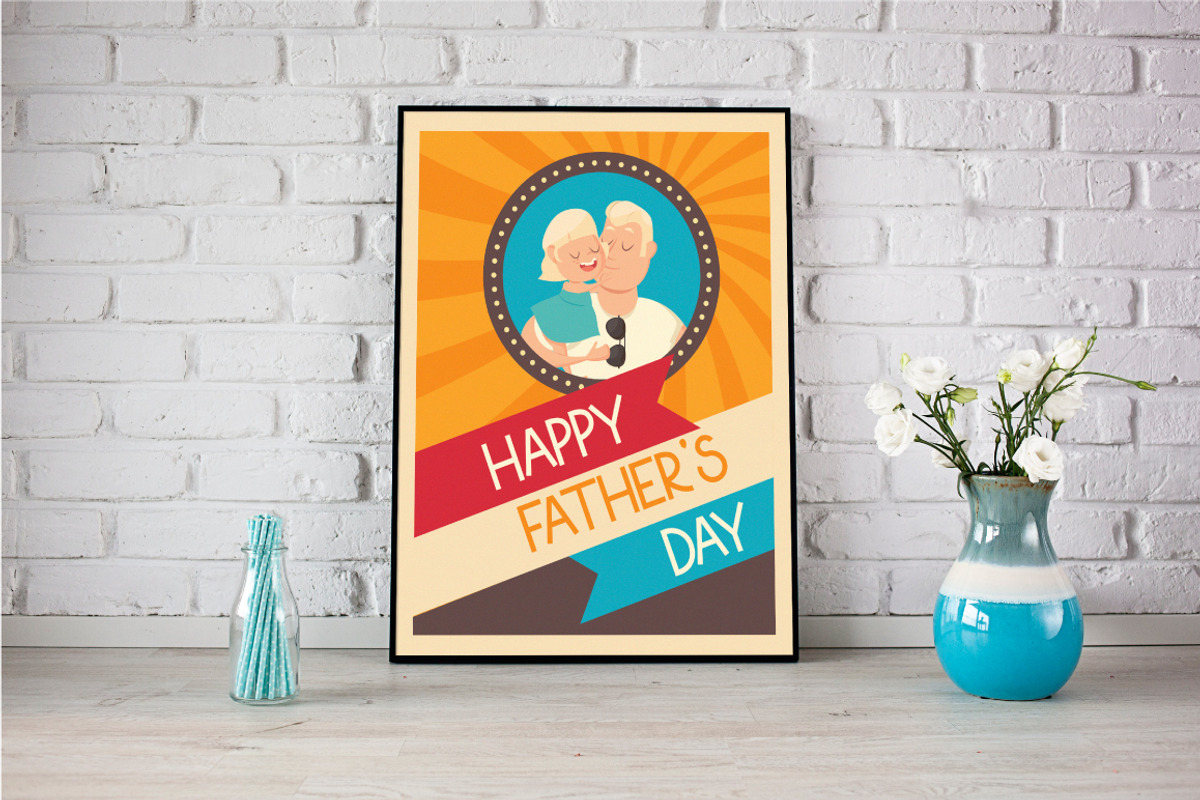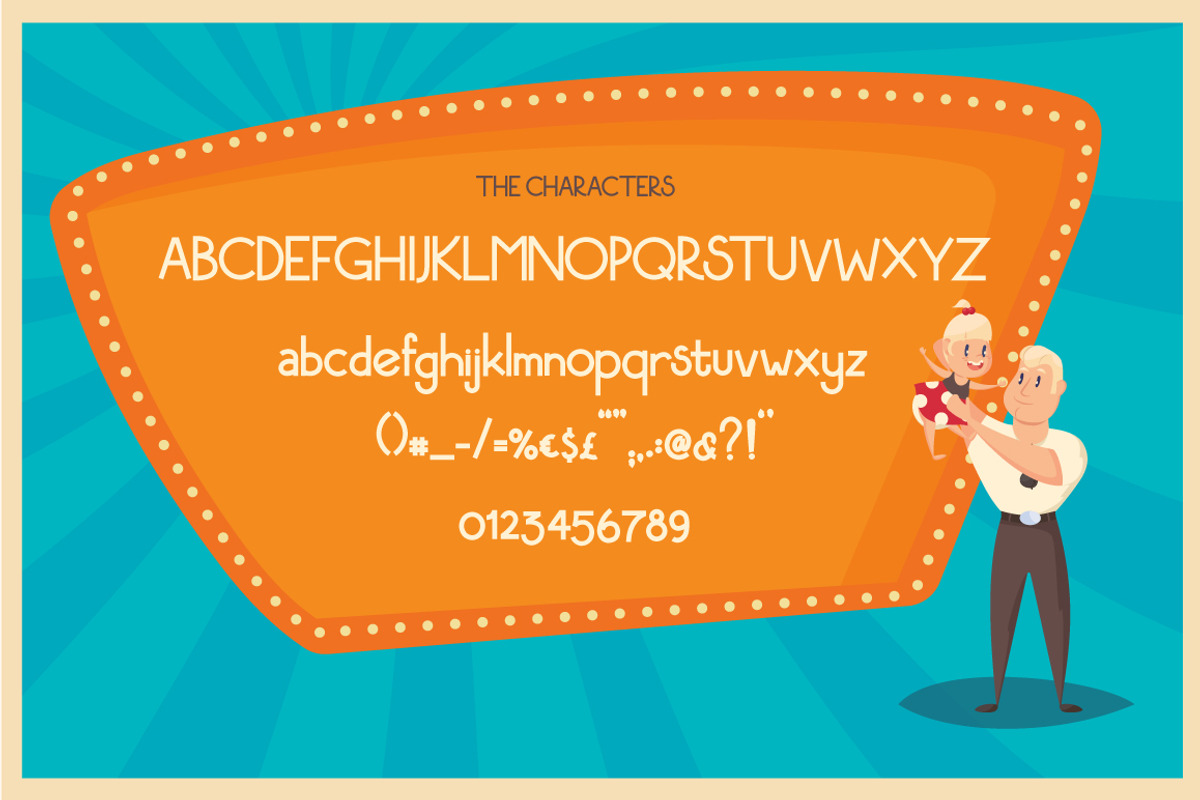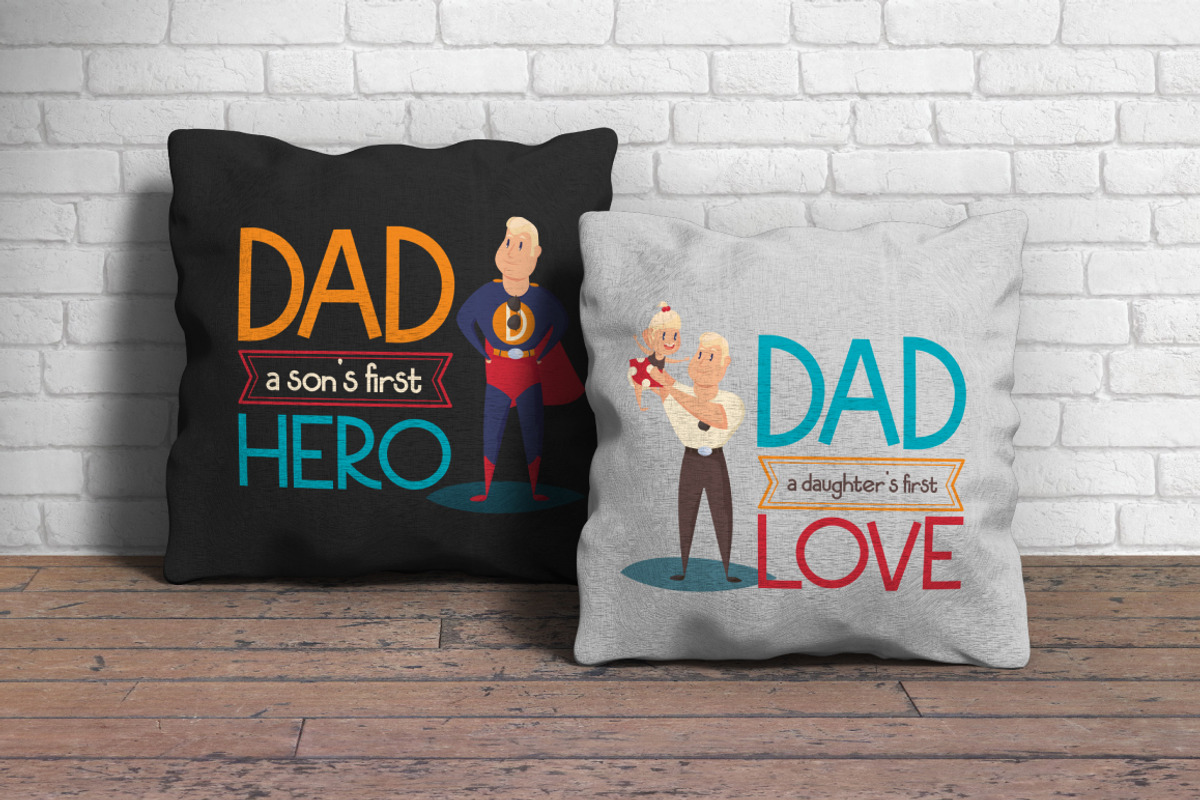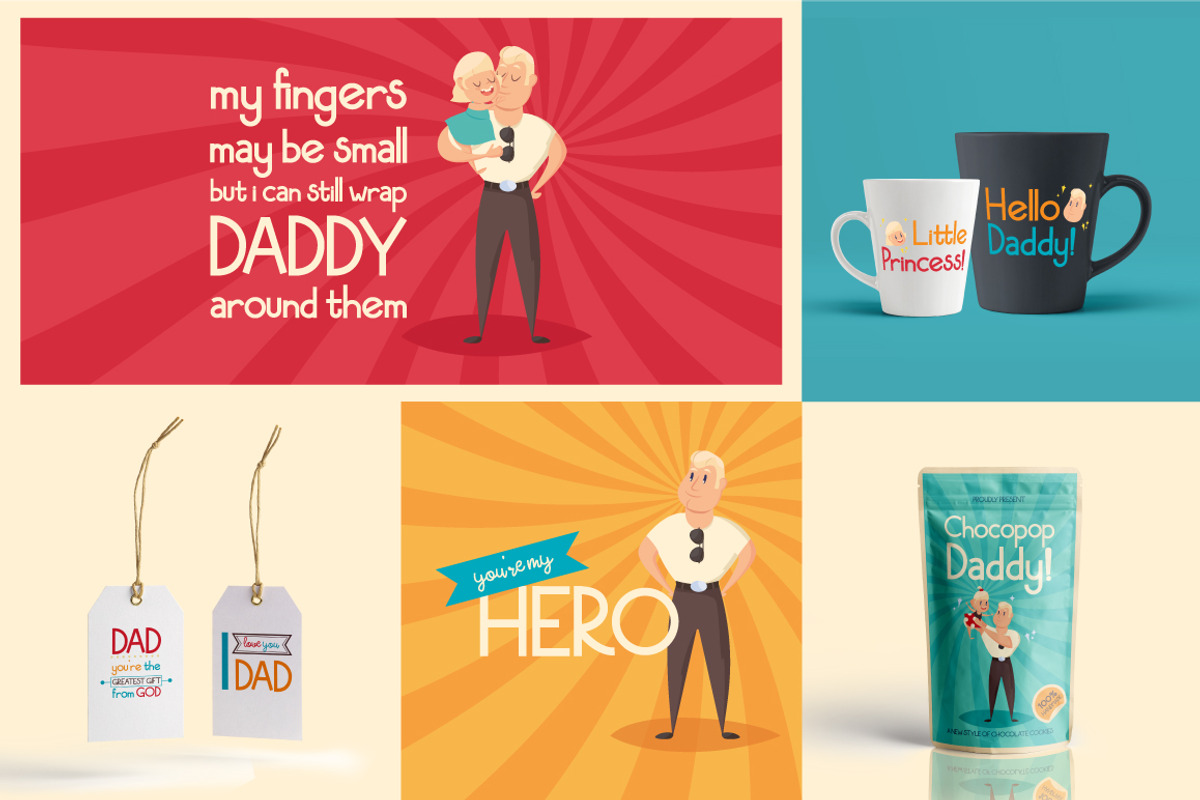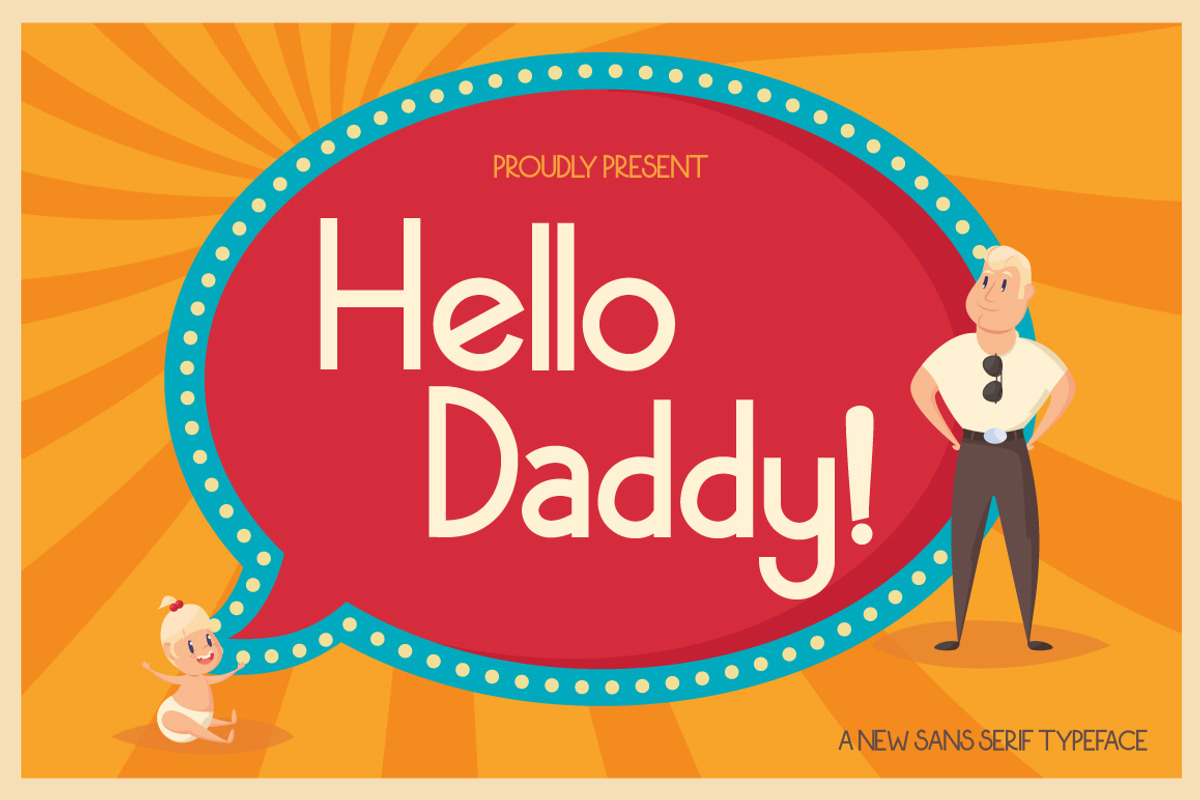
Hello Daddy
Hello Daddy a new fresh & modern sans serif with a handmade style and full of happines.
They are perfect to use for: logos, branding, home decor, signs, mugs, shirts, pantry labels, stickers, greeting cards, posters, social media, planner prints, and etc. Just have a great fun with Kama on your design!